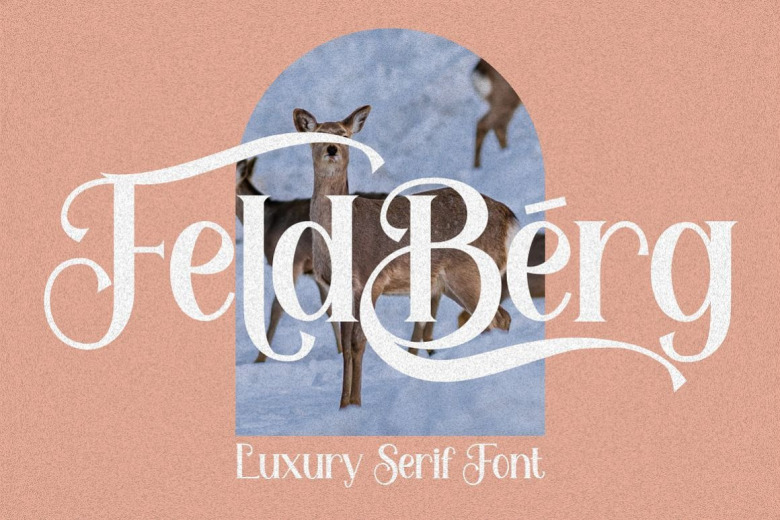
Feldberg Font
Feldberg is a sophisticated ligature serif font from designer PutraCetol Studio. This typeface has been made carefully to make sure its premium quality and luxury feel. It’s come with open type feature with a lot of alternates, its help you to make great lettering, composition and layout. Feldberg best uses for heading headlines, cover, poster, logos, quotes, product packaging, merchandise, social media & greeting cards and many more.